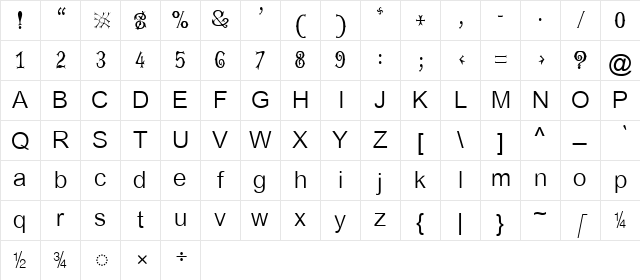
TAU_Elango_Vairam Regular
Design Context for TAU_Elango_Vairam
TAU_Elango_Vairam is a composed and adaptable typeface that performs quietly and consistently across a wide range of design contexts.